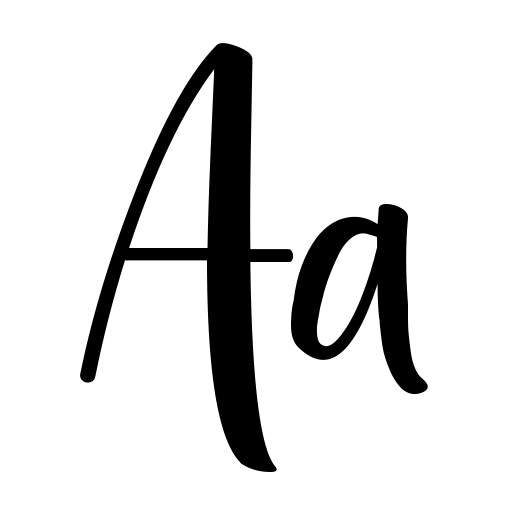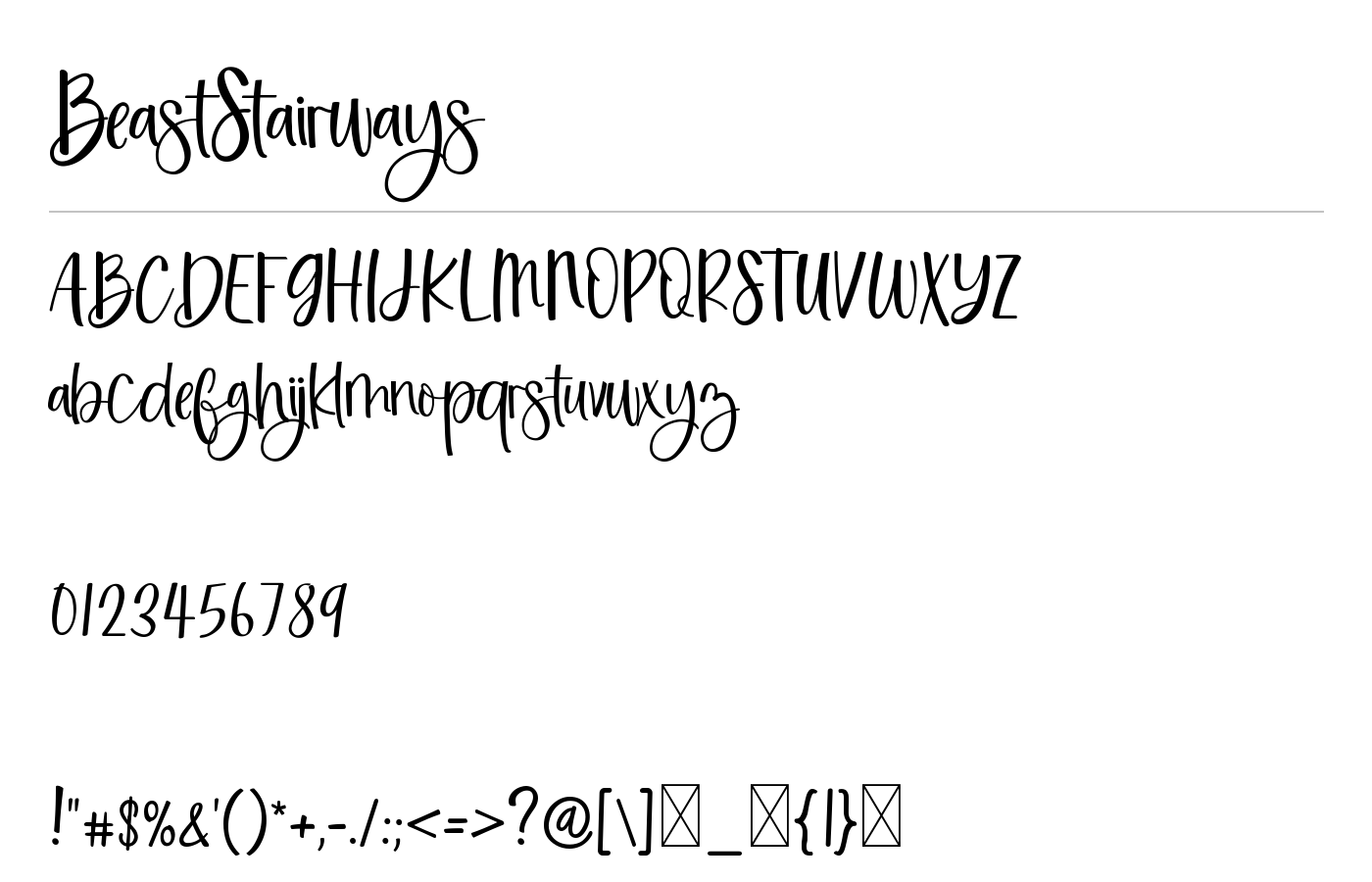
BeastStairways is a playful and elegant handwritten script font with a tall, narrow structure and flowing, connected strokes that add a personal and artistic touch. Its whimsical style, featuring unique letterforms and smooth curves, makes it perfect for creative branding, invitations, and stylish headlines that seek a friendly yet sophisticated vibe. This font works well where a charming, handcrafted feel is desired to engage and delight audiences.
BeastStairways Font
About BeastStairways Font